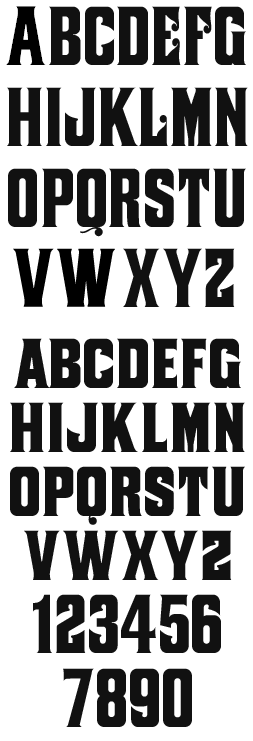
LHF Prince is a letterstyle inspired by the old "Farmer's Deposit National Bank" stock certificates (early 1900's). Prince was the bank president's dog and would accompany him to work daily. His photo was used on the banks letterhead and checks as well. LHF Prince Gives any design a "no-nonsense" attitude with it's sharp serifs, but retains a sense of elegance with decorative balls on the ends of some caps. .